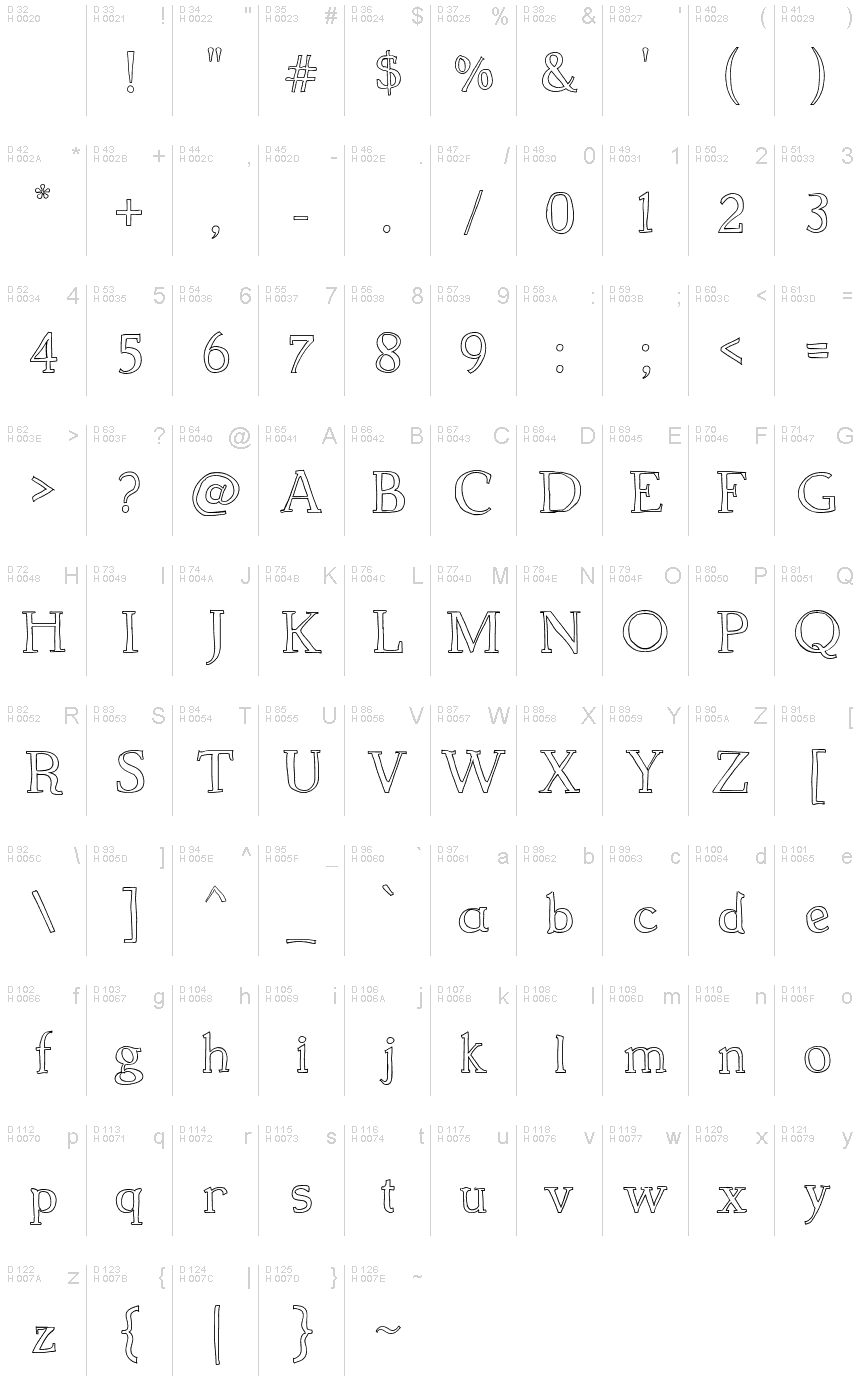
Children s Book
Unleash the playful spirit of storytelling with Children's Book by Galdino Otten Fonts.
This whimsical display font, with its outlined cartoon style and semi-light weight, is a vibrant addition to any designer's toolkit. Perfectly suited for children’s literature, educational materials, and playful branding, Children's Book invites an air of joy and creativity into each project.
Its charming character ensures your designs will resonate with audiences both young and old, making it an indispensable asset for crafting engaging visual narratives.